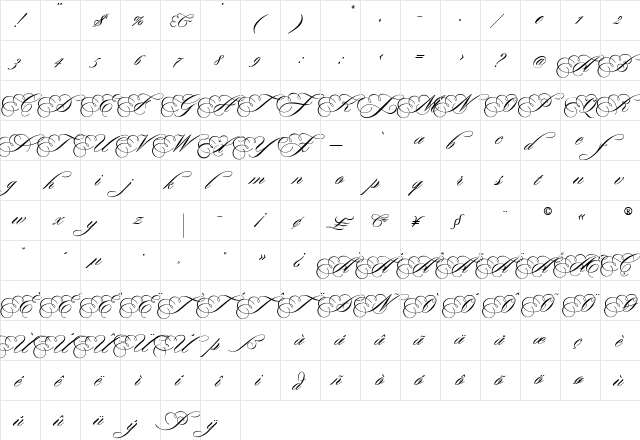
Portfolio Regular
| Designer | Robbie de Villiers |
Design Context for Portfolio Typeface
Portfolio is a composed and adaptable typeface that performs quietly and consistently across a wide range of design contexts.